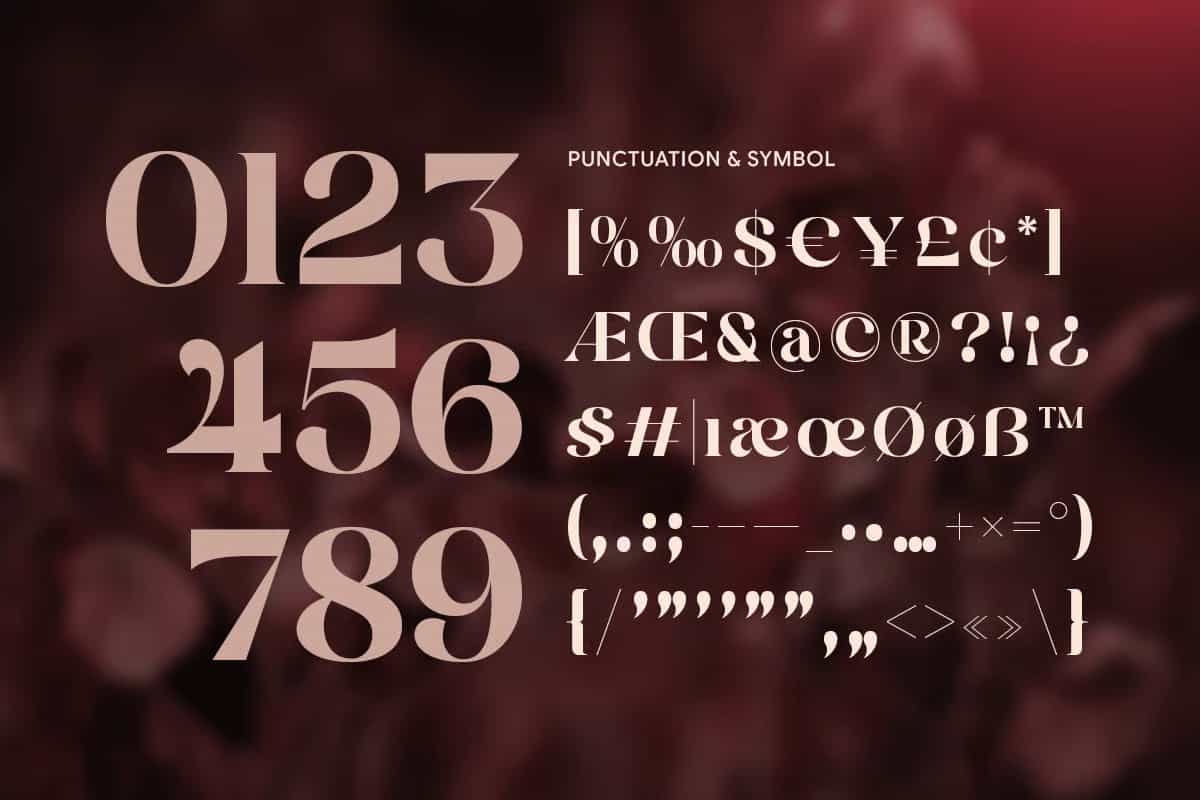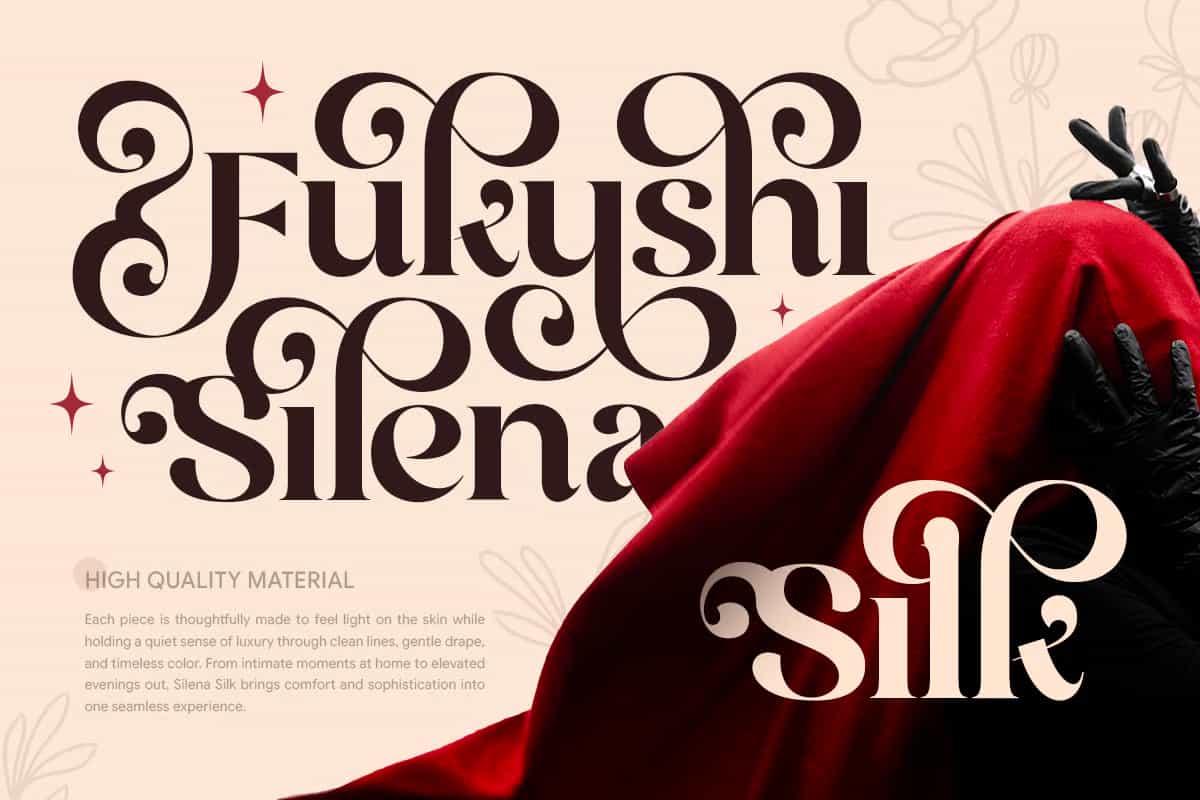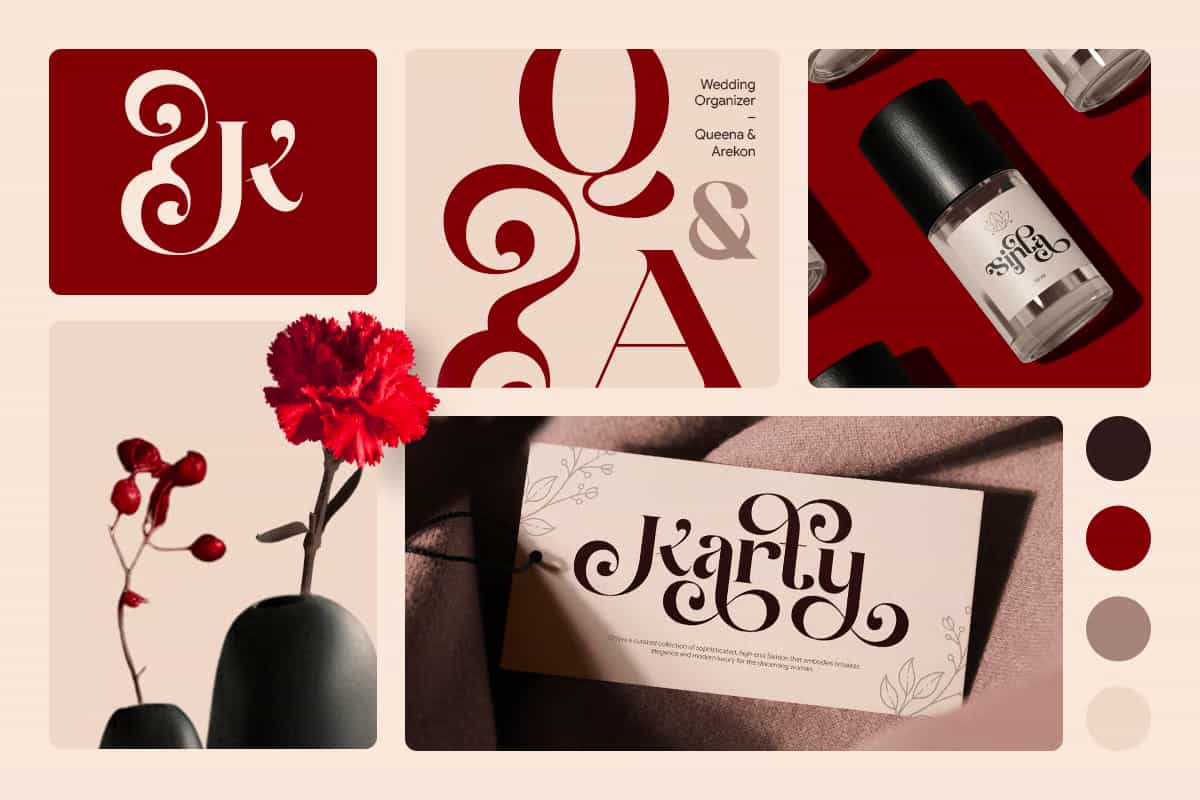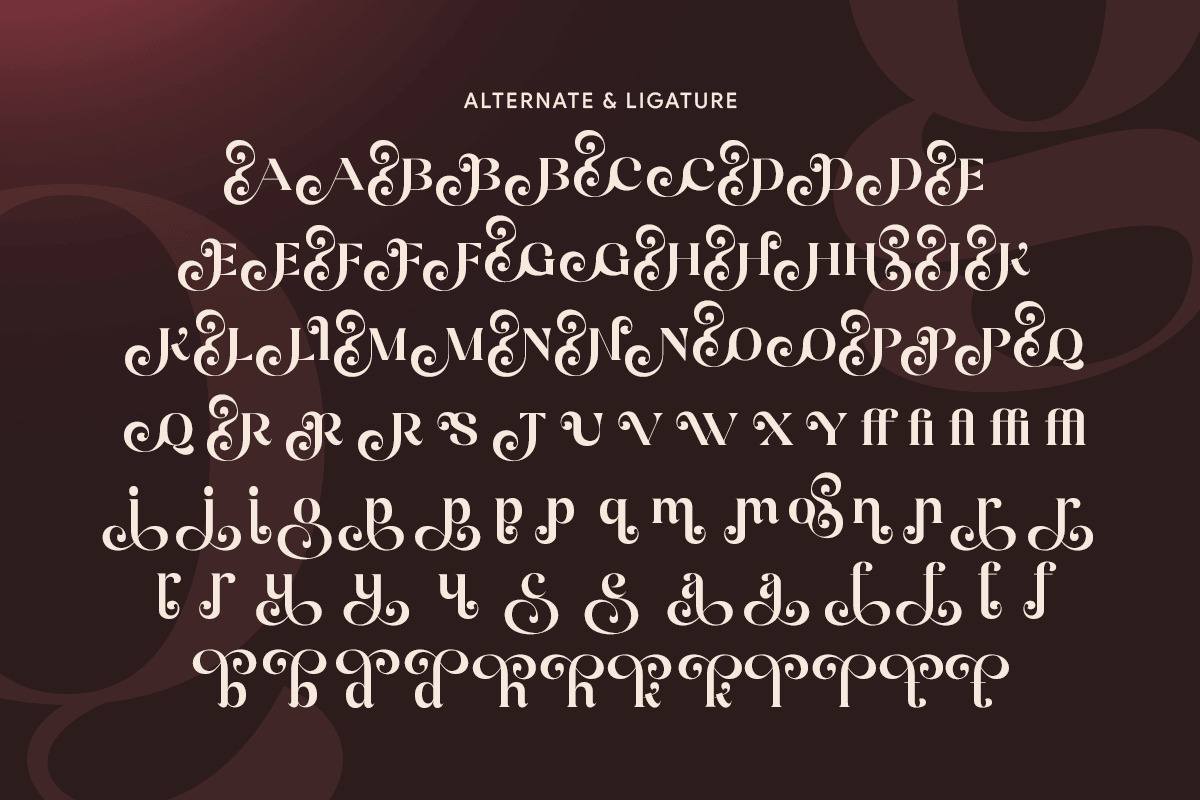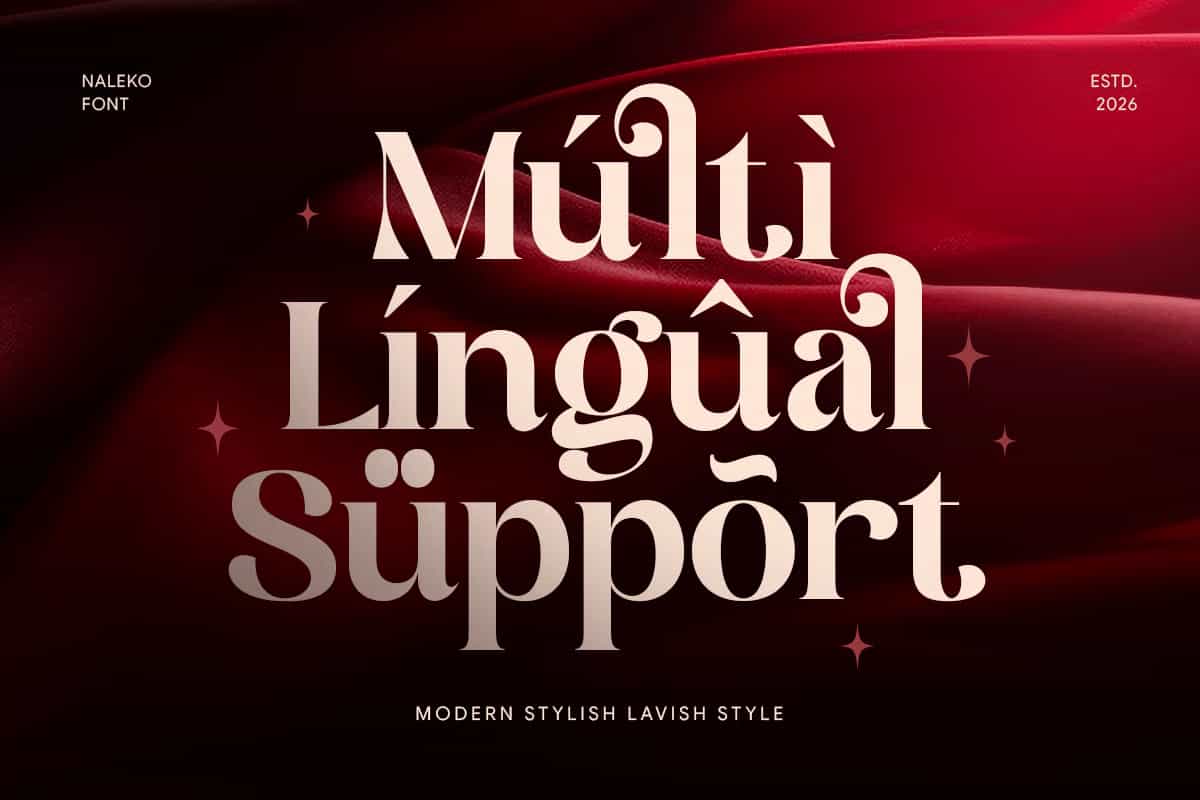
Naleko is a modern stylish font created with a clean and elegant look. Its smooth curves and refined letter shapes give it a premium feel, making it suitable for branding, fashion projects, editorials, and luxury-style designs.
The font combines a modern structure with a soft and classy appearance, helping designs feel more polished without looking too heavy. It works well for logos, packaging, beauty brands, boutique products, and creative layouts.
Naleko keeps a balanced and stylish look across different design styles, making it flexible for both digital and print projects.
- Modern and elegant font style
- Suitable for branding and luxury designs
- Uppercase and lowercase letters
- Numbers and punctuation included
- Smooth and refined letterforms
- Works well for logos, editorials and packaging